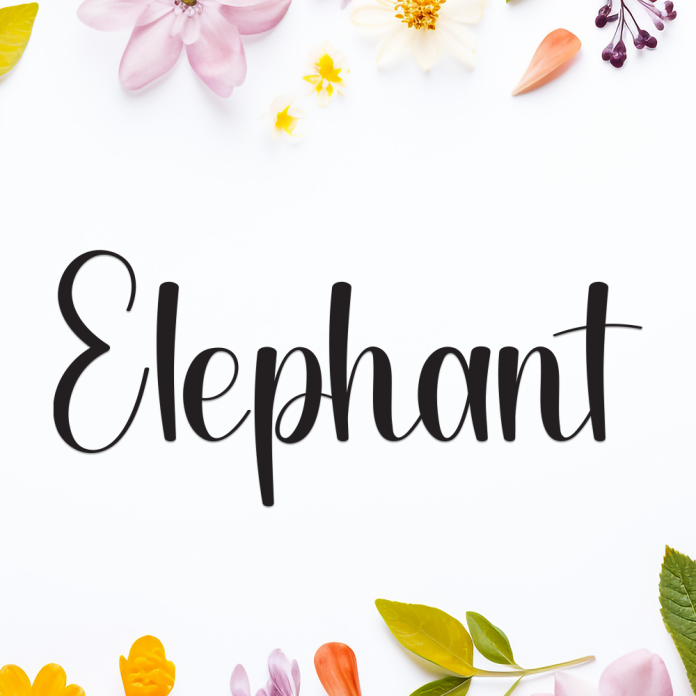
Elephant is a bold and confident handwriting font that blends strength with style. Its thick strokes and expressive curves make it feel both handwritten and impactful — like a note written with purpose and personality.
Handwriting style with bold, rounded strokes
Great for logos, posters, branding, and creative quotes
Combines playful charm with strong presence
Includes uppercase & lowercase letters
Numbers and basic punctuation
Let your words stand tall and proud with Elephant — a handwriting font that’s as powerful as it is personal.